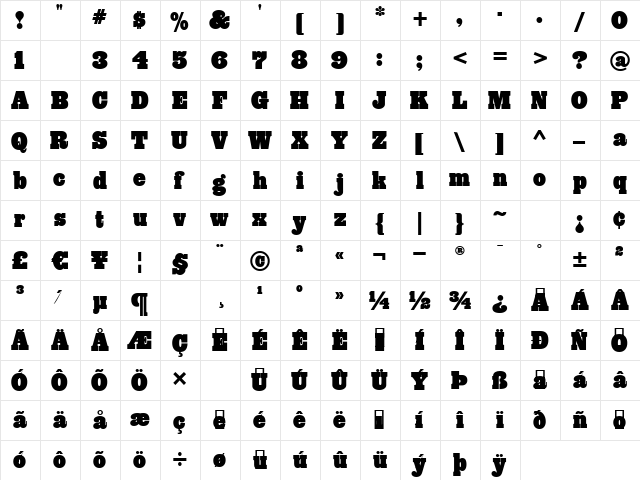
Rio Grande Wbw Regular
Design Context for Rio Grande Wbw Typeface
Rio Grande Wbw offers clean, dependable letterforms without strong stylistic allegiance, making it a practical choice for designers who need flexibility.